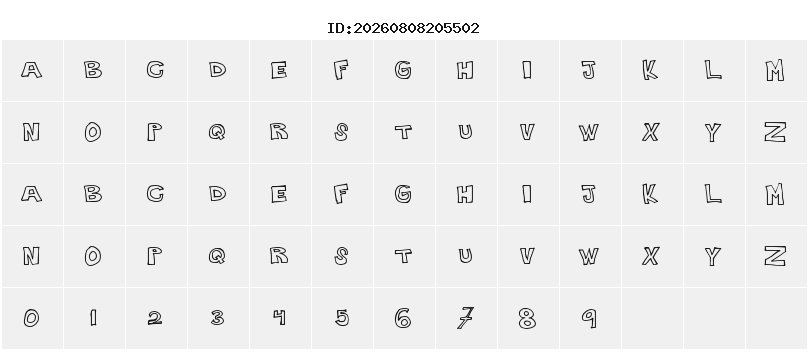
• Font Name: PlainHandline
• Designer: Max Infeld
• Manufacturer: Xerographer Fonts
• Description: This font at Ojai,CA handdrawn plain simple outline header poster
About PlainHandline.ttf
PlainHandline.ttf is a modern, elegant sans-serif font designed for ultimate readability and visual harmony. Perfect for branding, headlines, web design, and print materials.